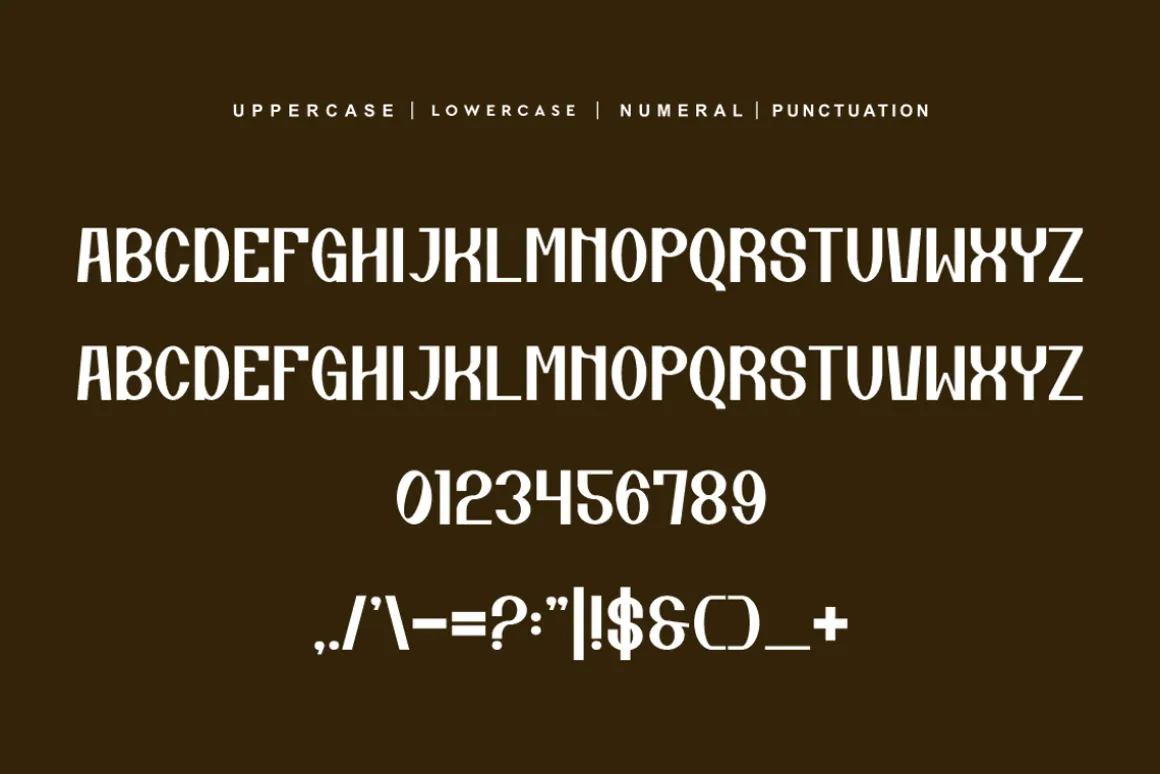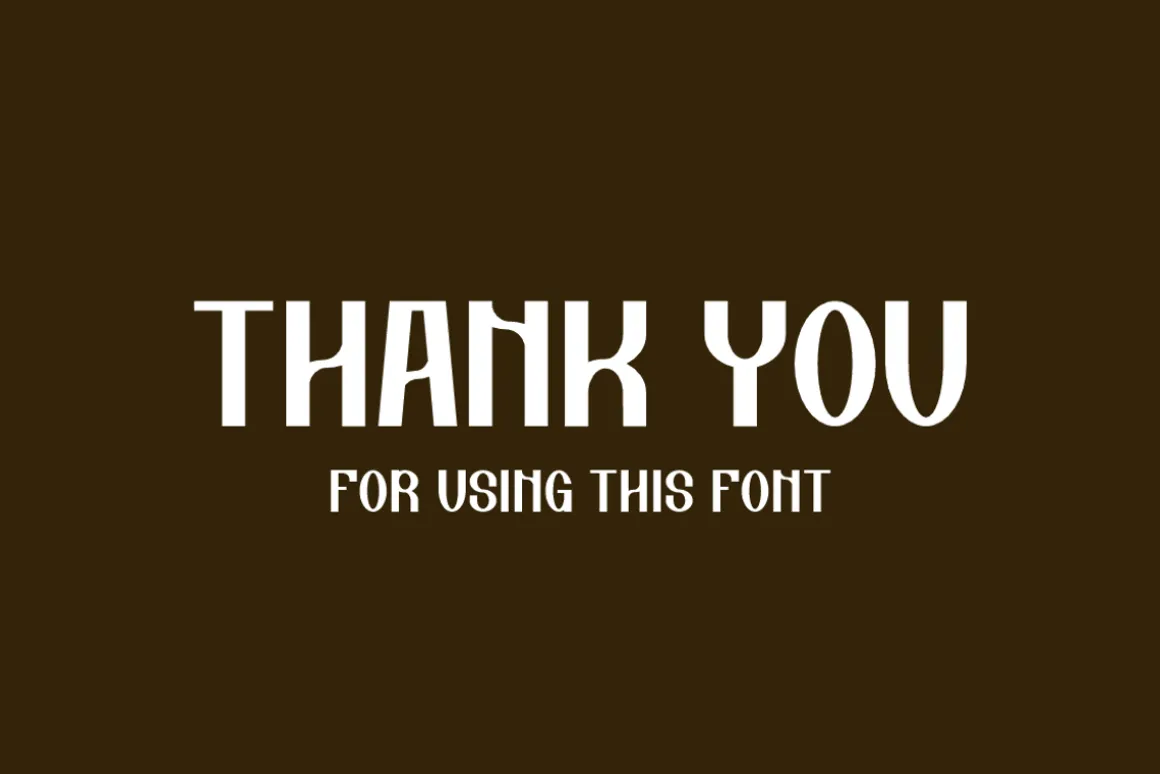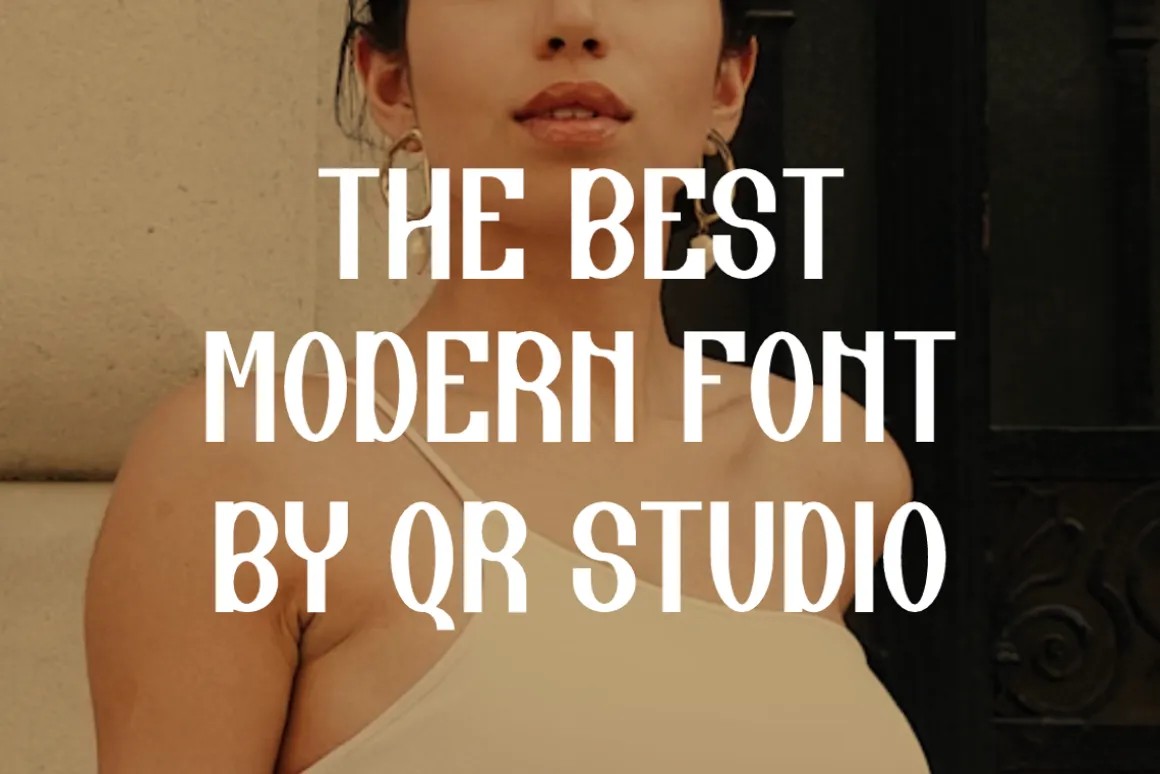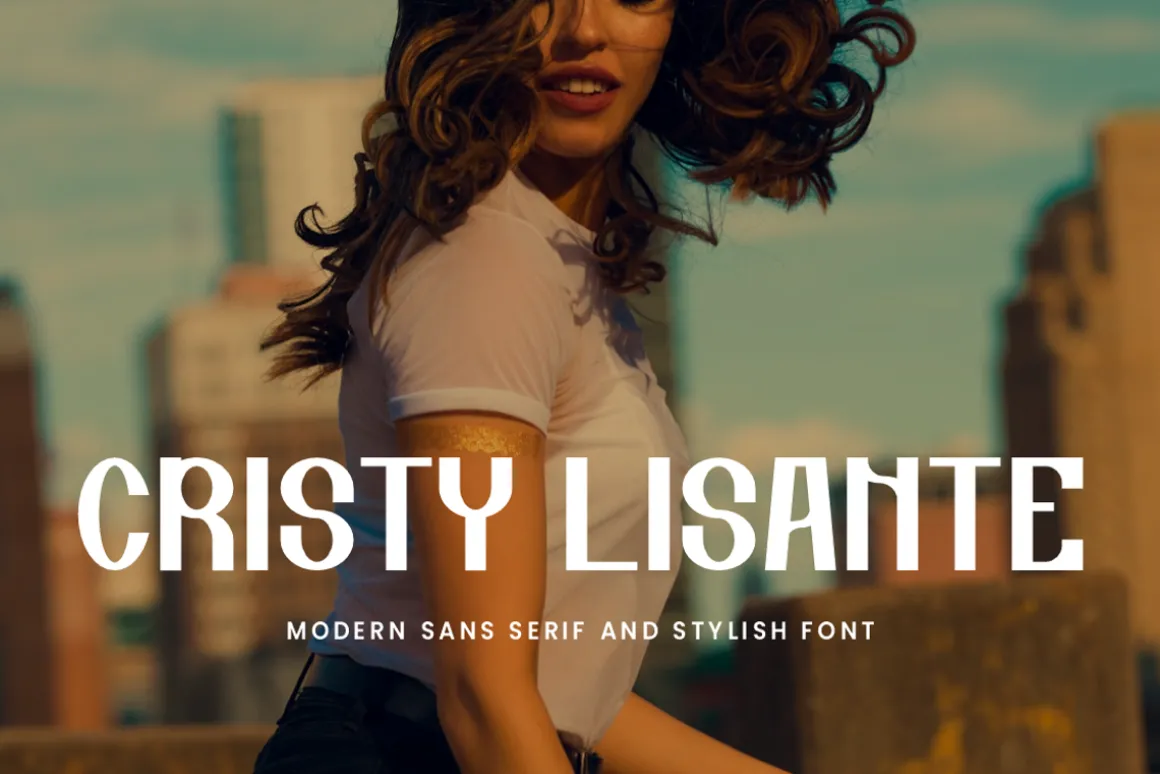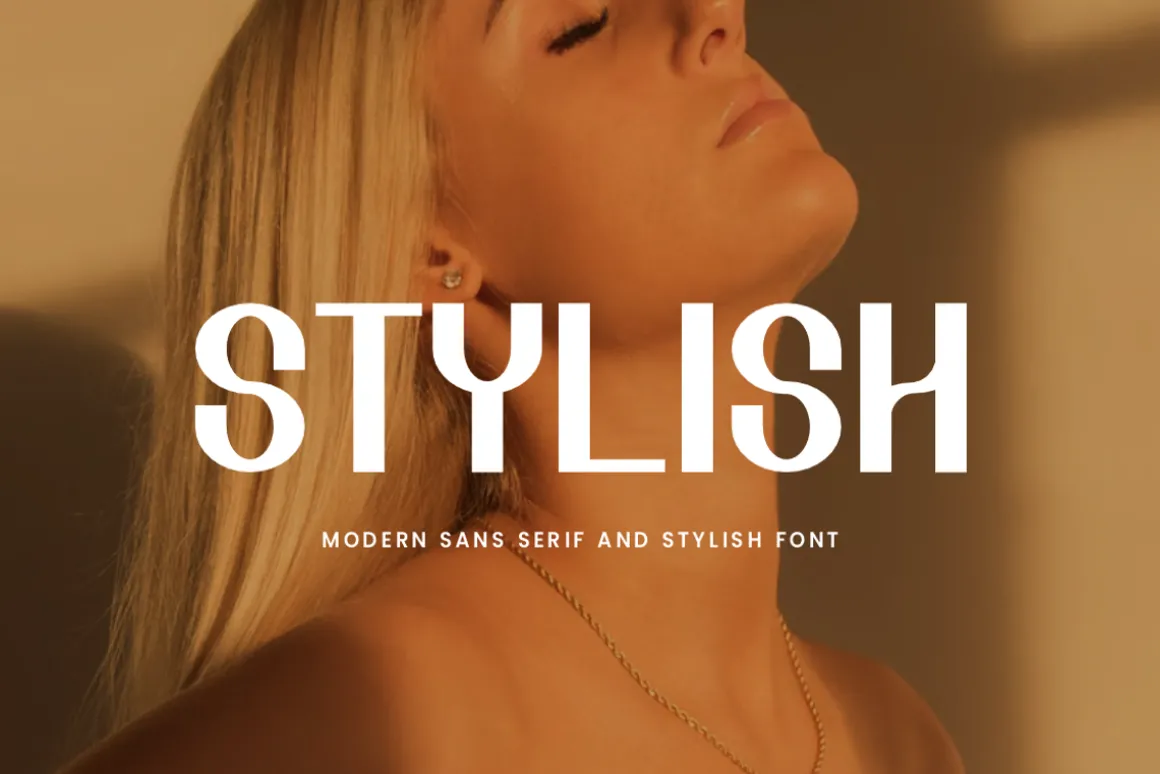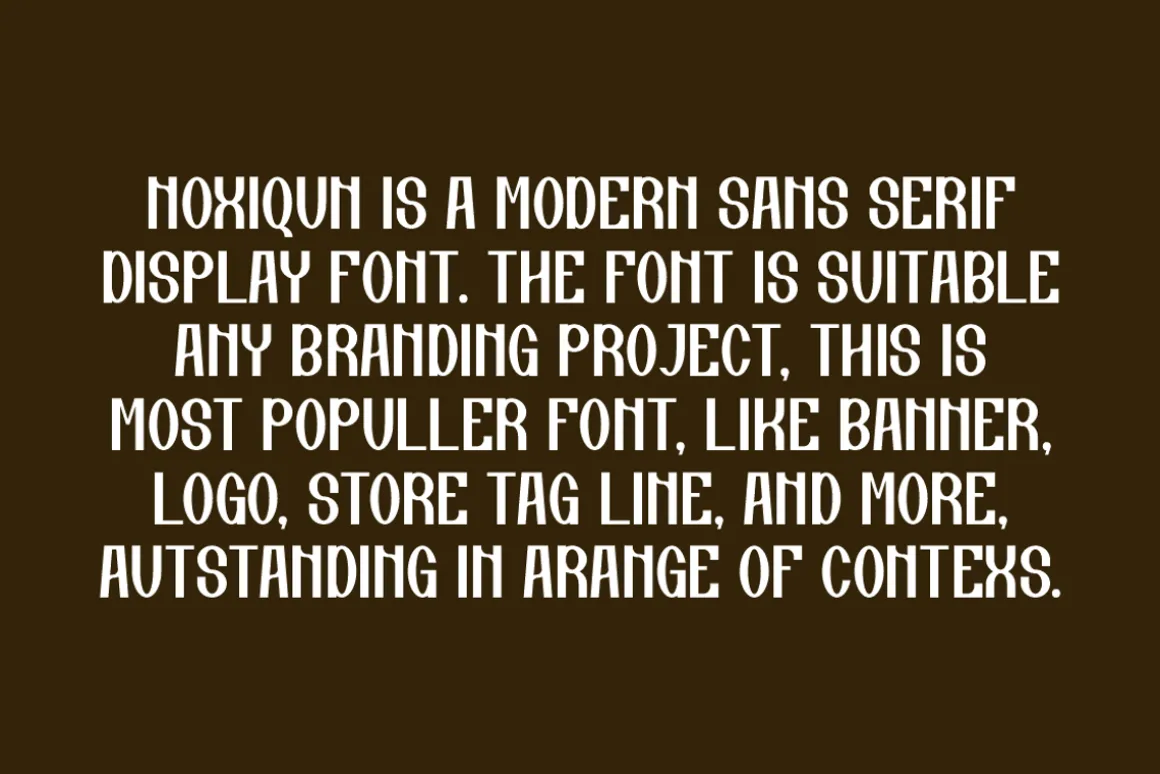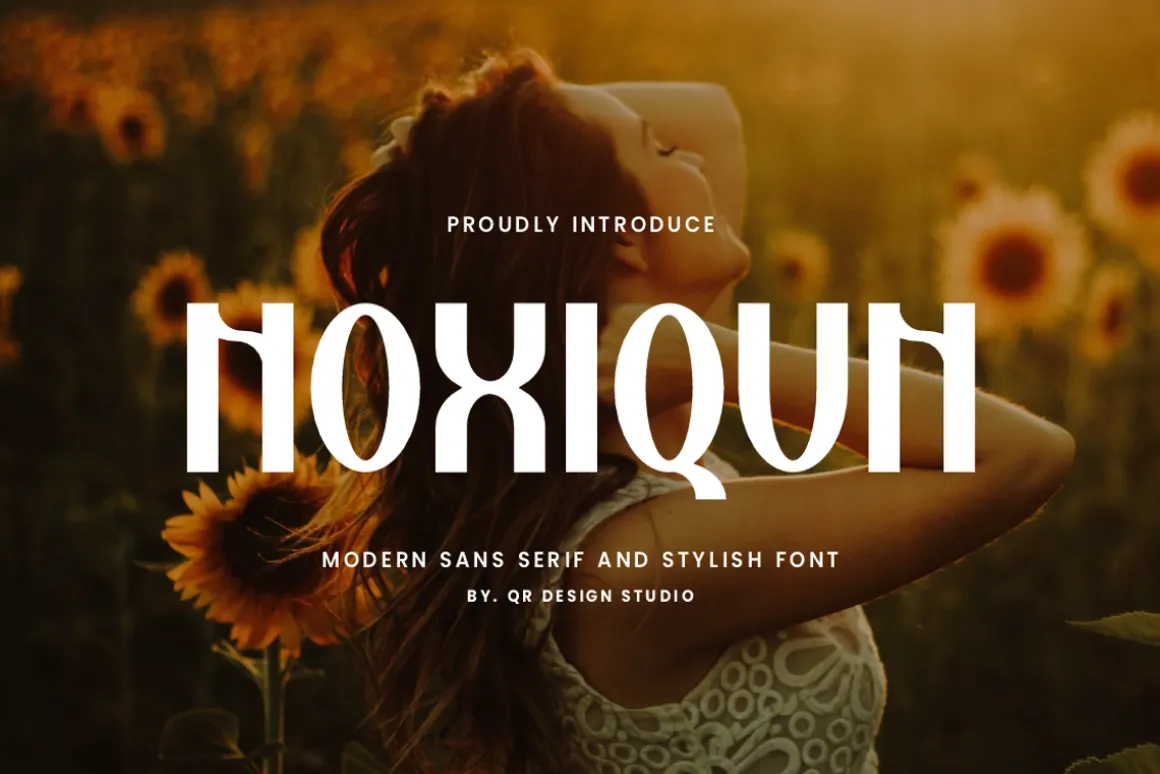
Noxiqun Font is a sans serif and authentic display font.The font is suitable for any branding project like stylish, poster, logo, sport, and many more.Outstanding in a wide range of contexts.